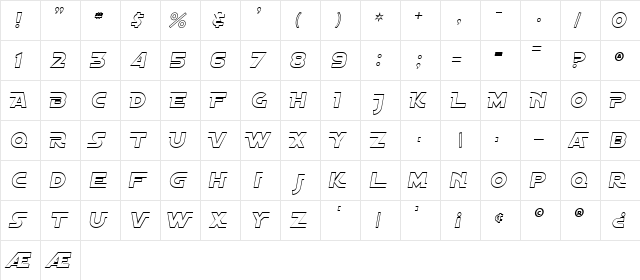
Distant Galaxy AltOutline Italic
Design Context for Distant Galaxy AltOutline Typeface
Distant Galaxy AltOutline brings ornamental detail and strong personality to headlines and identities, where visual impact matters more than quiet functionality. The slanted form adds forward momentum and visual energy.
Font Pairing: Pair with a clean neutral sans-serif for body copy to let Distant Galaxy AltOutline's character lead without overwhelming the composition.
Pro Tip: Use Distant Galaxy AltOutline exclusively at display sizes — it was designed to be seen, not read at length. Let a neutral companion handle body copy.